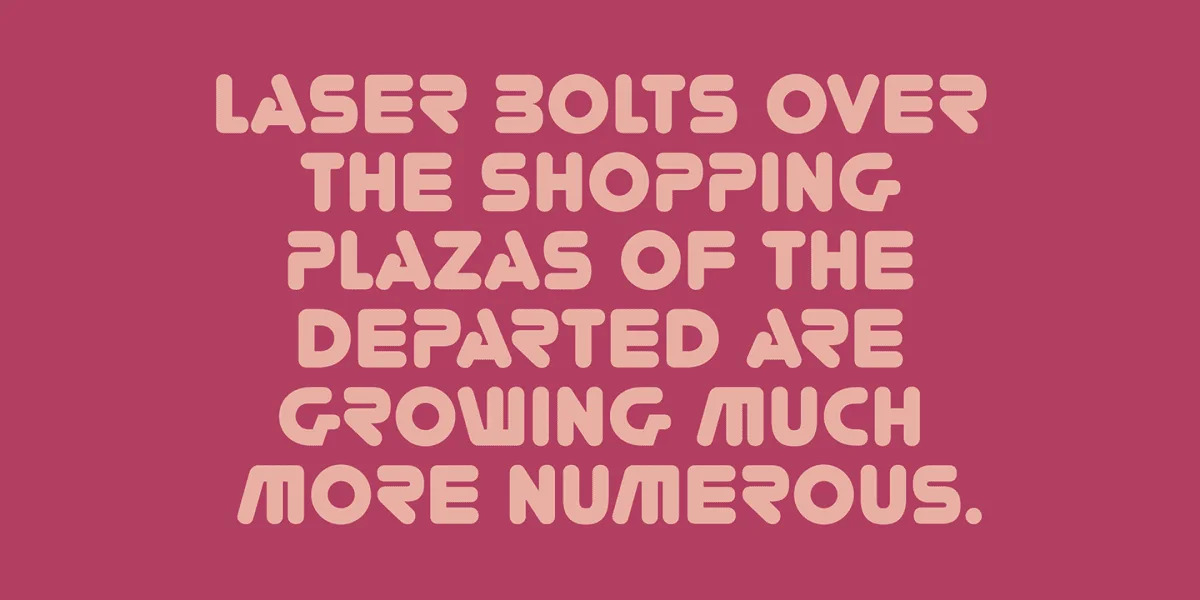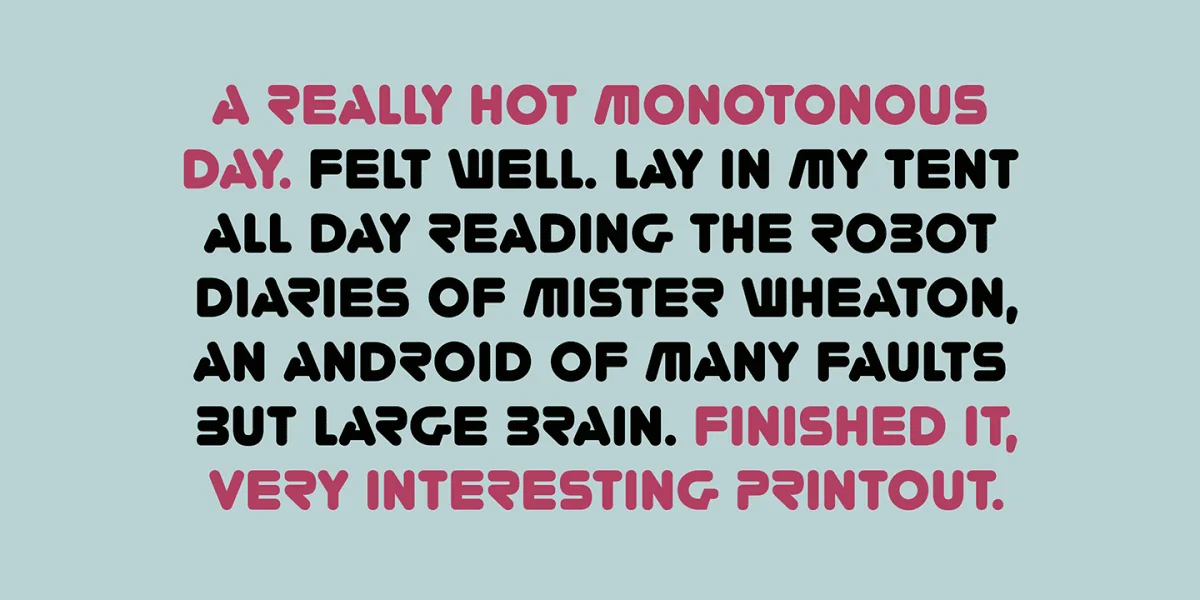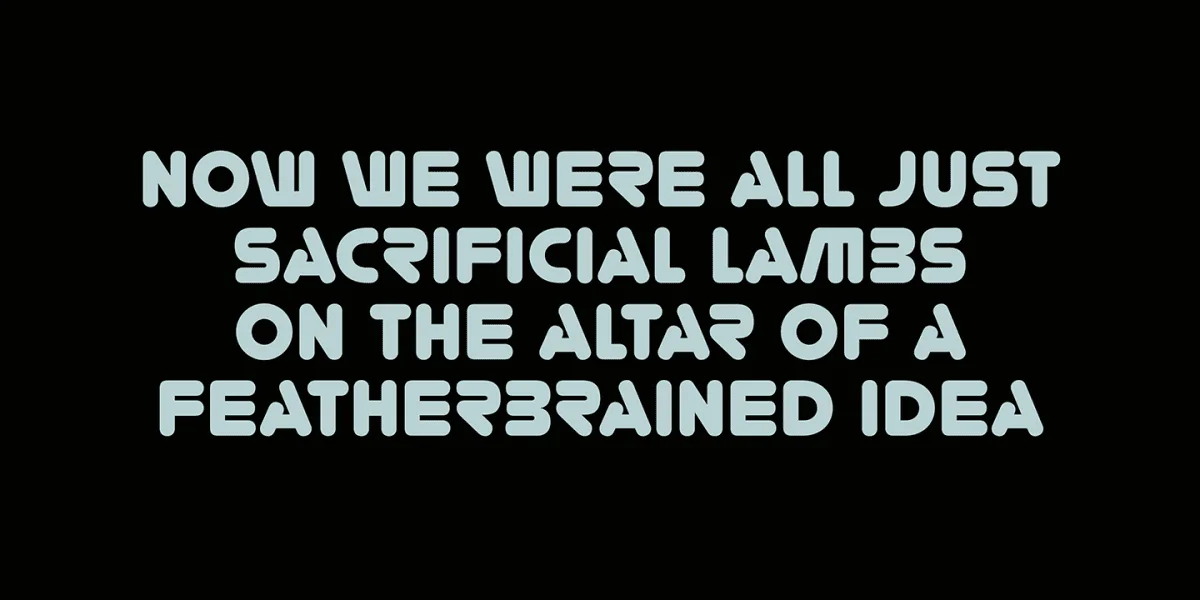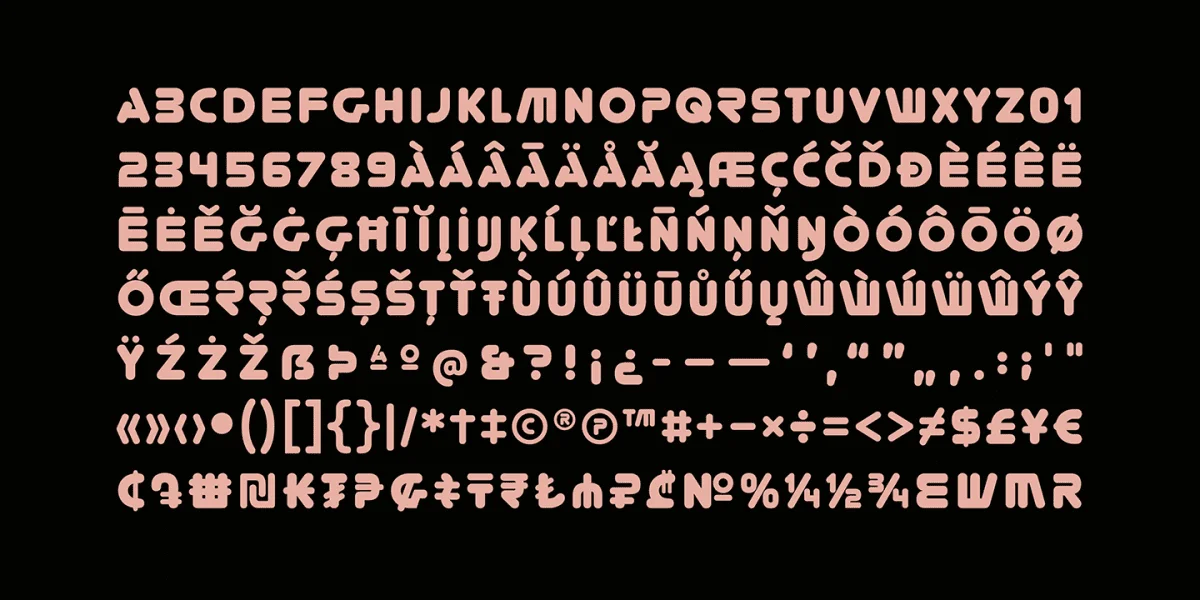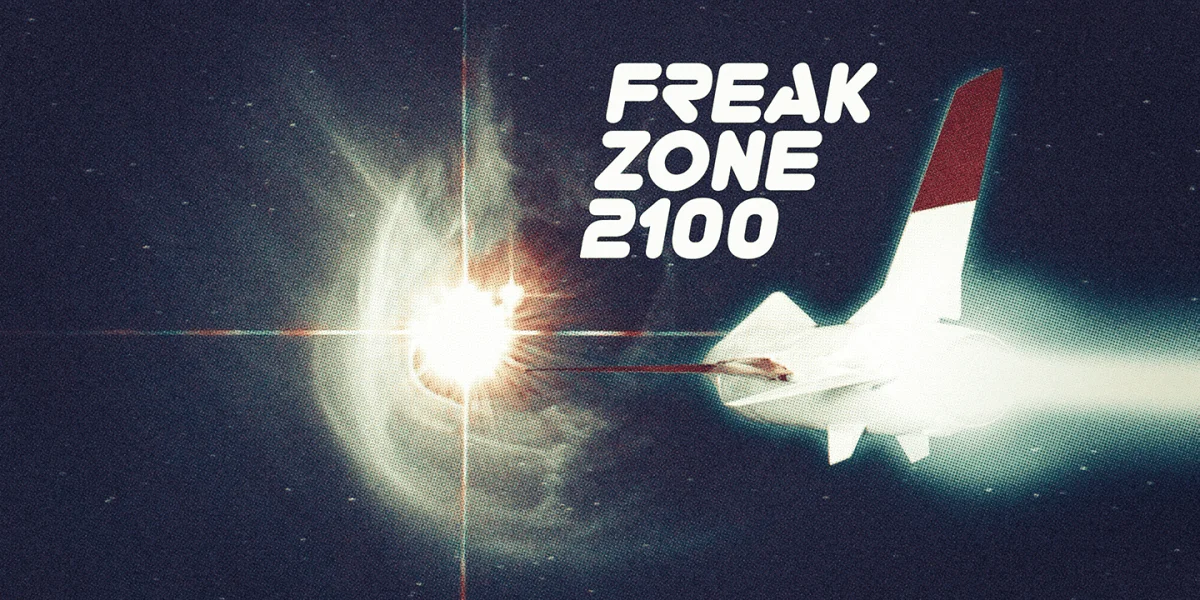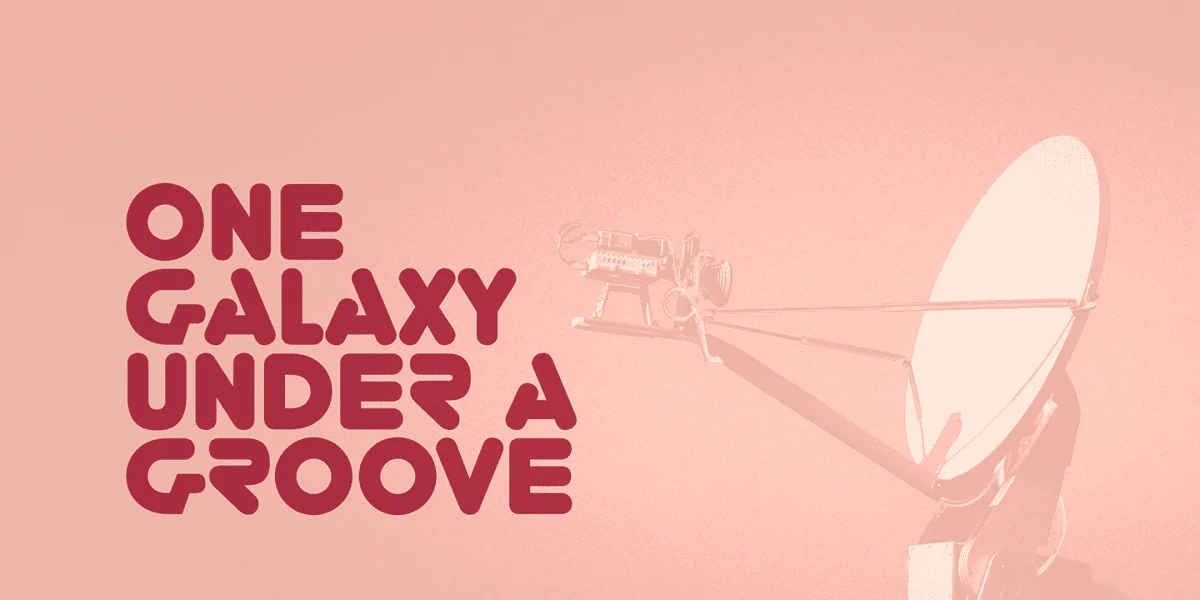
Typography is the art of crafting letters and shaping language, and for designers, selecting the right font is crucial. Every typeface has its unique personality and can evoke different emotions, which is why selecting the right one for your project is essential. With that in mind, we introduce to you the You’re Gone typeface—a true gem in the world of typography.
This rounded techno typeface with an industrial vibe from the 1980s is the perfect way to add a unique, technical edge to your message. Its dauntless strokes and mellow, rounded edges create an industrial look with a contemporary twist, making it the ideal choice for designers looking for something fresh and modern.
With its distinct, detached letterforms, You’re Gone is perfect for capturing attention and leaving a lasting impression. This typeface is ideal for all kinds of design projects, from branding and packaging to websites and social media graphics. Its bold, techno look is perfect for businesses in the technology, manufacturing, and industrial sectors.
You’re Gone is a versatile typeface that can be used in a variety of ways. Its rounded edges and thick strokes create a distinctive and memorable look, while its technical vibe adds a sense of professionalism and expertise to your message. It’s the perfect way to stand out in a crowded marketplace and make a bold statement with your design.
Overall, if you’re looking for a typeface that combines industrial vibes with a contemporary twist, then You’re Gone is the perfect choice. With its bold, rounded strokes and detached letterforms, it’s sure to make a lasting impression and give your message the edge it needs to stand out.